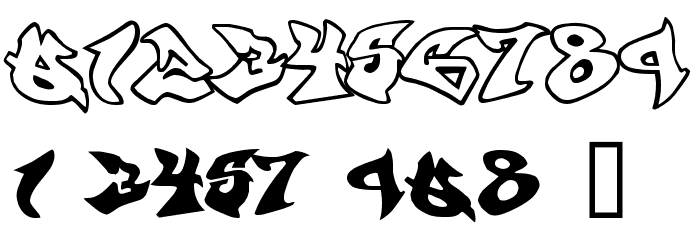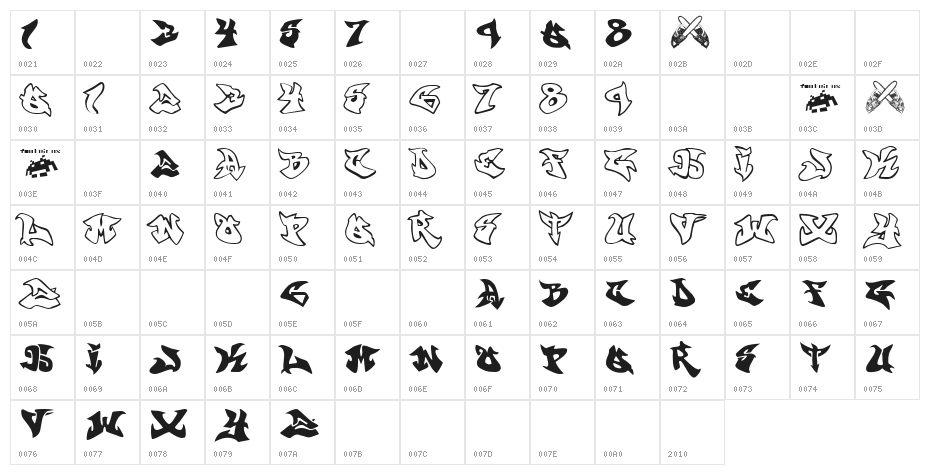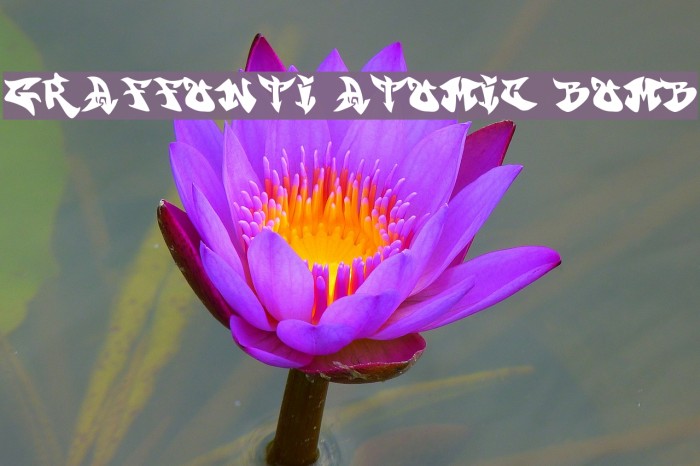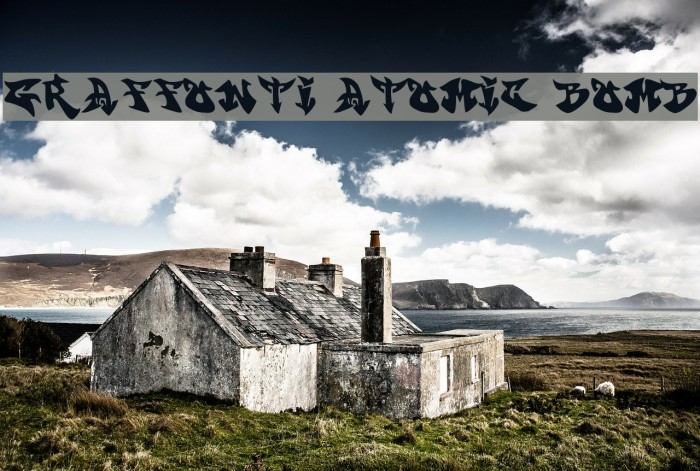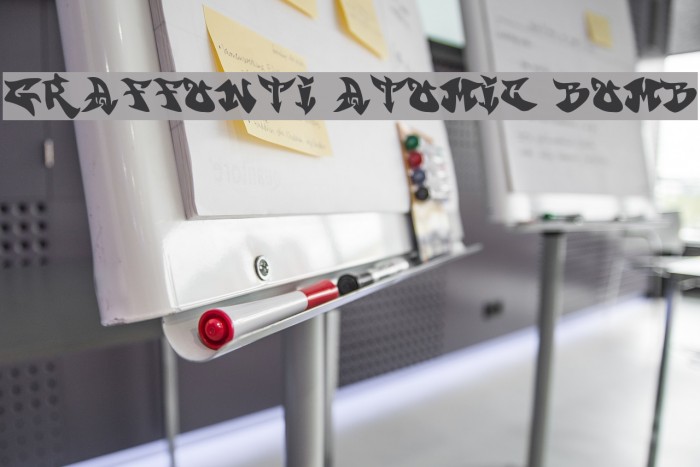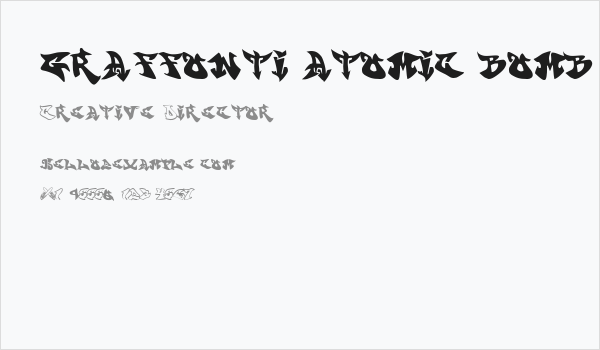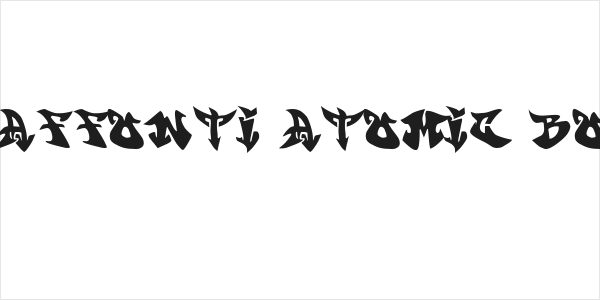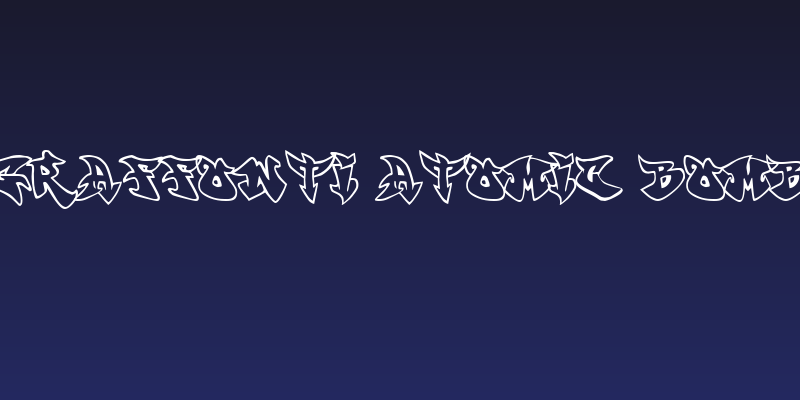
graffonti.atomic.bomb Font
graffonti.atomic.bomb Description
This font features a bold, graffiti-inspired style with sharp, angular lines and dynamic shapes. The characters are highly stylized, resembling street art with a sense of movement and energy. The uppercase and lowercase letters share a consistent aesthetic, with exaggerated serifs and unique forms that make each character stand out. The numbers and special characters maintain the same artistic flair, adding to the font's cohesive look. This font is ideal for projects that require a bold statement and a touch of urban edge.
| Overall Style | Urban, Edgy, Artistic |
| Proposed Projects | Ideal for street art designs, urban-themed posters, music album covers, and edgy branding projects. |